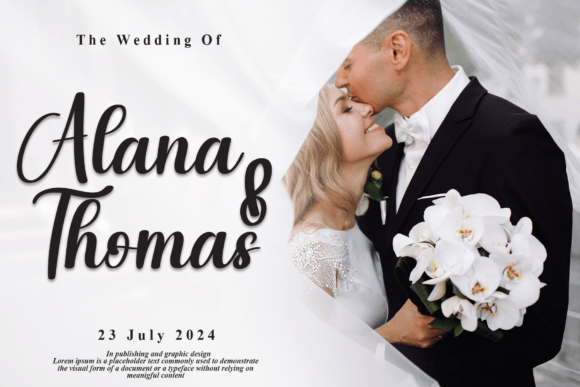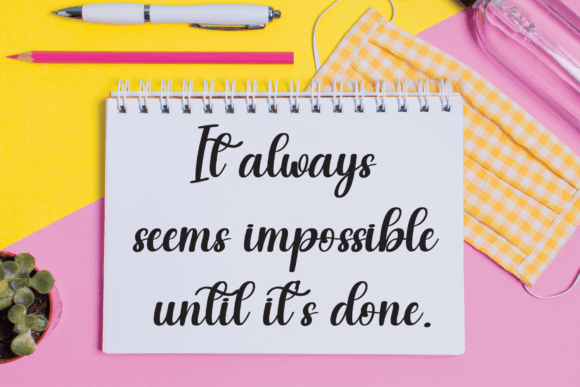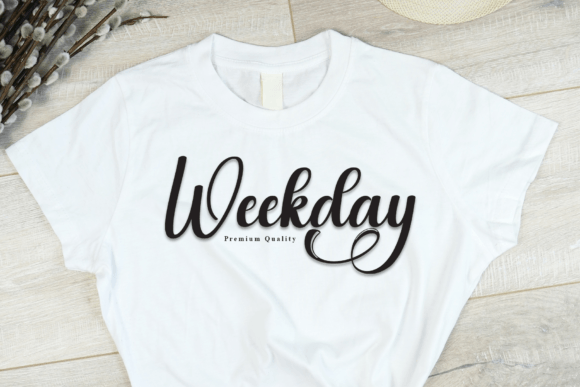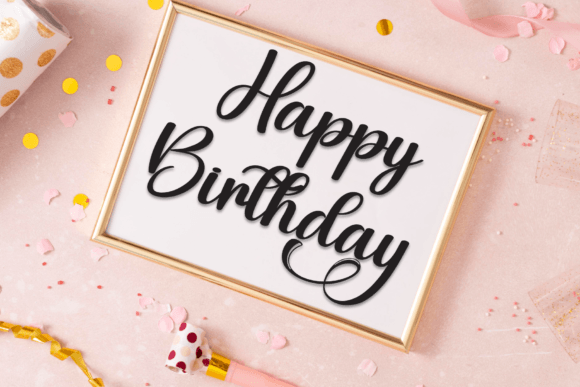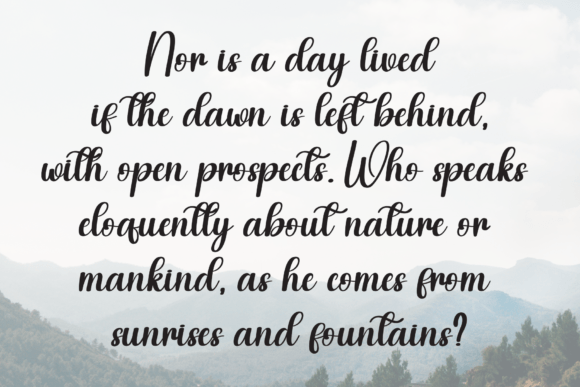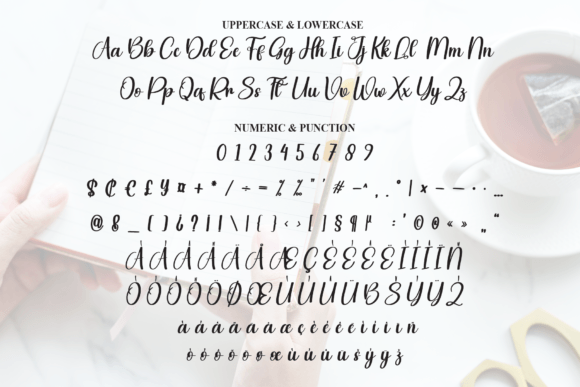
Introducing Daily Font: The Perfect Blend of Boldness and Personality
Are you tired of using the same old fonts for your designs? Do you want to add a personal touch to your text and make it stand out from the crowd? Look no further than Daily Font, a bold handwritten font with a strong, casual style that’s perfect for designers and crafters alike.
What is Daily Font?
Daily Font is a unique and stylish font that’s designed to add a touch of personality to any text. Its clear and confident strokes make it easy to read and understand, while its bold and casual style gives it a friendly and approachable feel. Whether you’re designing a logo, creating a social media post, or crafting a handmade card, Daily Font is the perfect choice.
Key Features of Daily Font
- Bold and Confident Strokes: Daily Font features bold and confident strokes that make it easy to read and understand.
- Handwritten Style: Its handwritten style gives Daily Font a personal and friendly feel that’s perfect for adding a touch of personality to any text.
- Clear and Legible: Despite its bold style, Daily Font is clear and legible, making it perfect for use in a variety of design projects.
- Versatile: Daily Font is versatile and can be used in a variety of design projects, from logos and social media posts to handmade cards and crafts.
Who is Daily Font for?
Daily Font is perfect for designers and crafters who want to add a personal touch to their work. Whether you’re a professional designer or a hobbyist crafter, Daily Font is a great choice for anyone who wants to create unique and eye-catching designs.
Benefits of Using Daily Font
- Adds Personality to Your Designs: Daily Font adds a personal touch to your designs, making them stand out from the crowd.
- Easy to Read and Understand: Daily Font is clear and legible, making it easy for your audience to read and understand your text.
- Versatile: Daily Font is versatile and can be used in a variety of design projects.
- Unique and Eye-Catching: Daily Font is a unique and eye-catching font that will make your designs stand out from the crowd.
Tips and Tricks for Using Daily Font
- Use it for Headings and Titles: Daily Font is perfect for use in headings and titles, where its bold and confident strokes can really make an impact.
- Pair it with Other Fonts: Daily Font can be paired with other fonts to create a unique and eye-catching design.
- Experiment with Different Colors: Daily Font looks great in a variety of colors, so don’t be afraid to experiment and find the perfect color for your design.
Daily Font is a bold and stylish font that’s perfect for designers and crafters who want to add a personal touch to their work. Its clear and confident strokes make it easy to read and understand, while its bold and casual style gives it a friendly and approachable feel. Whether you’re designing a logo, creating a social media post, or crafting a handmade card, Daily Font is the perfect choice.